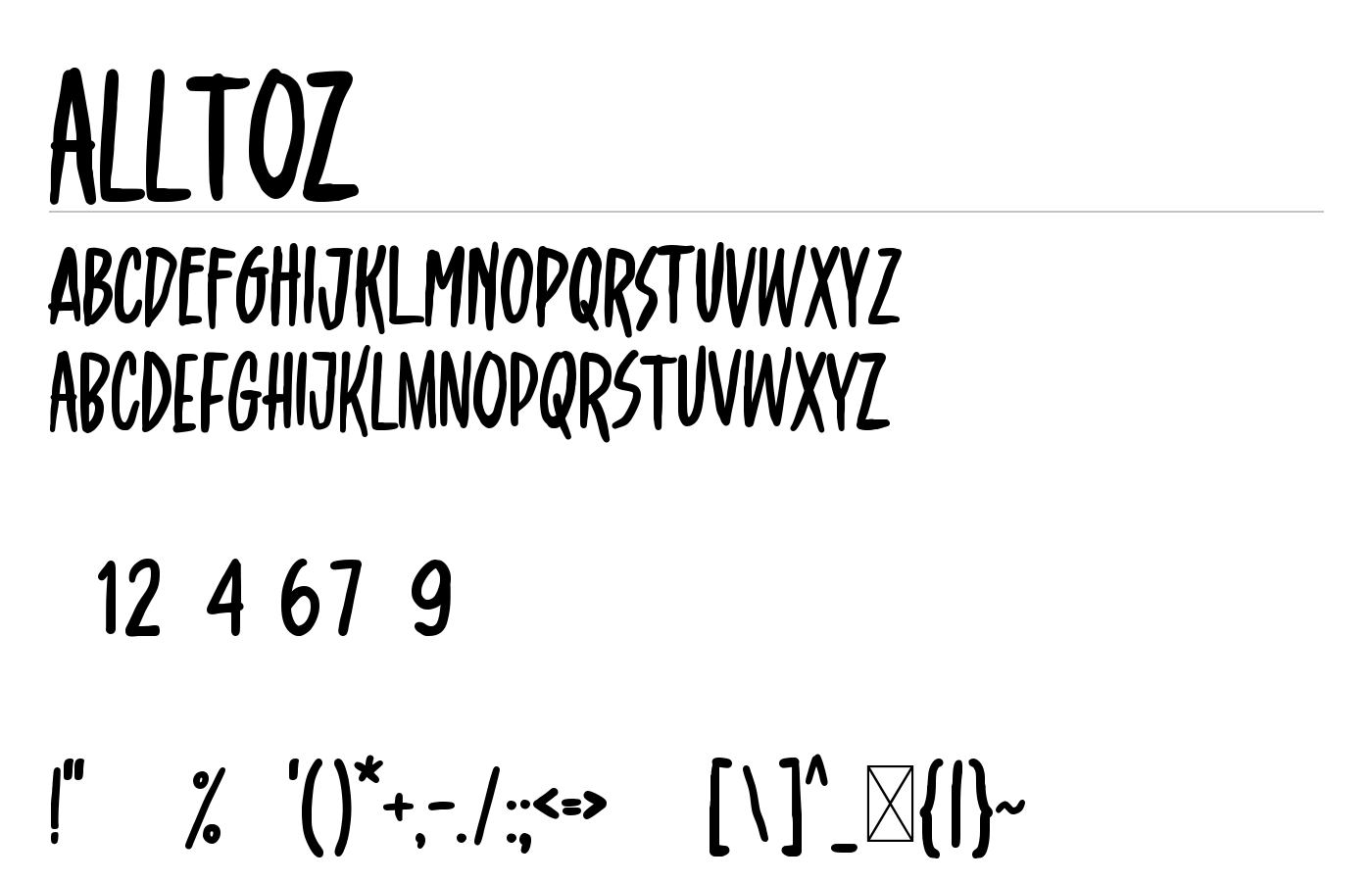
Alltoz is a playful, hand-drawn sans serif font that features tall, narrow letterforms with irregular strokes and a casual, organic feel. Its light weight and quirky character shapes make it ideal for creative designs needing a friendly and approachable personality, such as children's books, informal branding, or fun posters. This font works best in headlines or display use where its unique style can stand out and add warmth.
alltoz Font
About alltoz Font
| Font family | alltoz Font |
| Designer | Anang F & Malik Wsn | Gassstype© Studio 2021 |